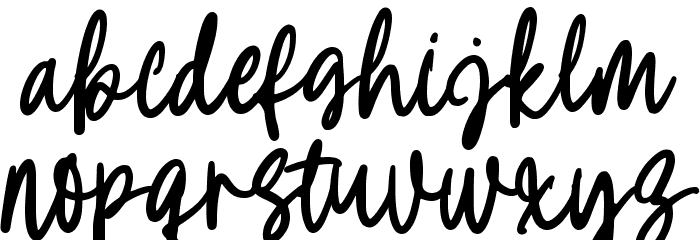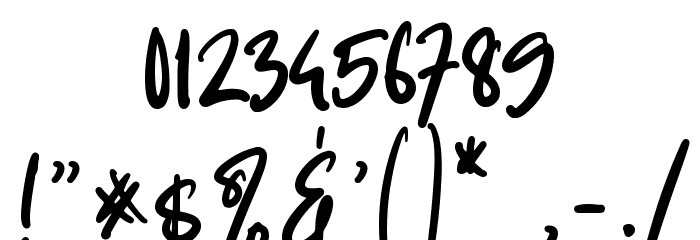
Summer Stylish Font
This font exudes a lively and energetic vibe with its bold, cursive script style. The letters are connected, creating a fluid and continuous flow, reminiscent of handwritten notes. The strokes are thick and consistent, providing a strong presence on the page. The uppercase letters are slightly larger and more pronounced, while the lowercase letters maintain a playful and casual appearance. Numbers and special characters are designed to match the overall aesthetic, ensuring a cohesive look. This font is perfect for projects that require a personal touch, such as invitations, greeting cards, or branding materials that aim to convey a sense of warmth and friendliness.
A bold, cursive script font with a lively and energetic style.
- Proposed Projects: Ideal for invitations, greeting cards, branding materials, and any project needing a personal, friendly touch.
- Use Case: Logos, Headlines, Invitations